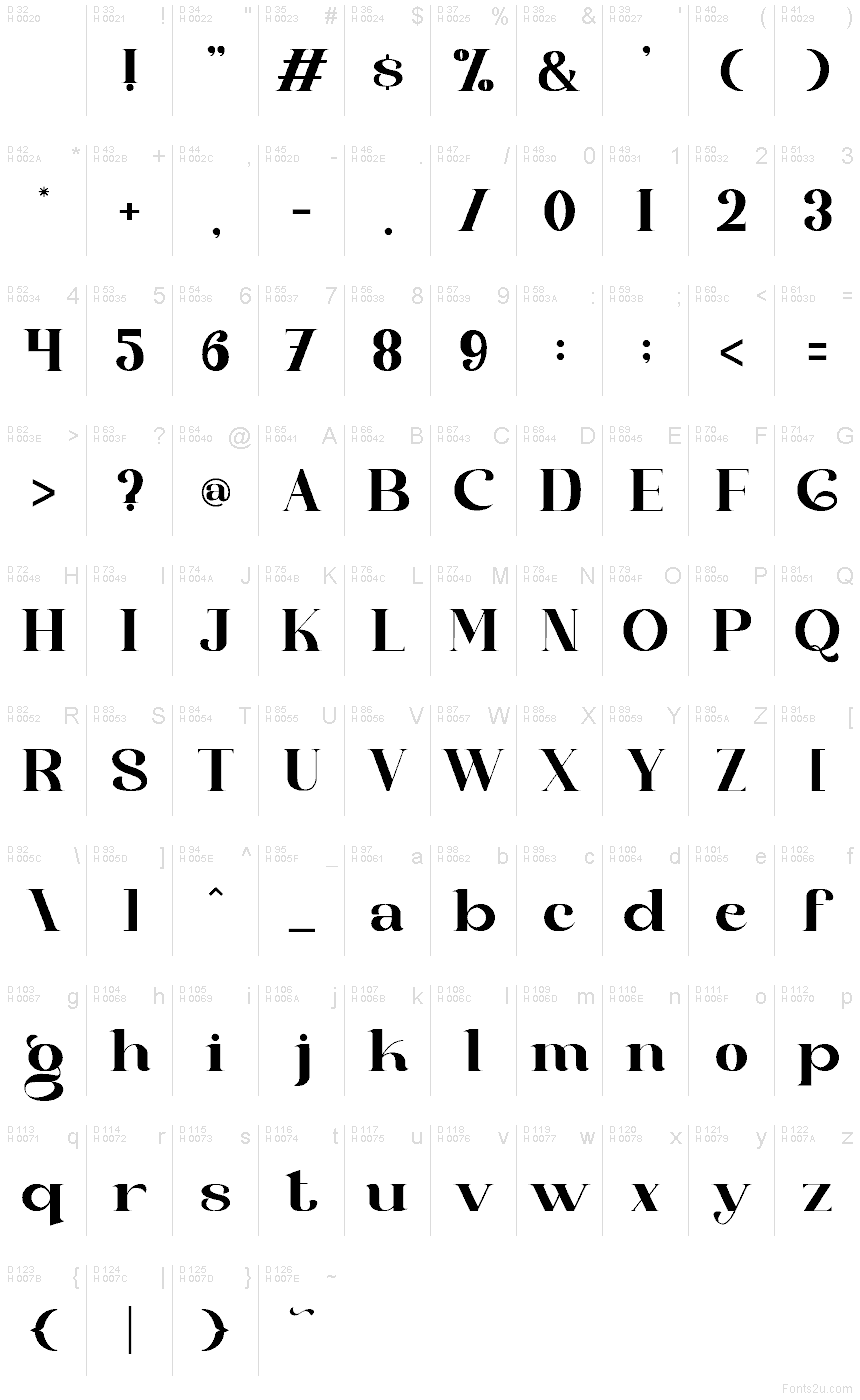
Grinda
Grinda font, by PutraCetol Studio, is a classic bold expanded serif with notable large text size. The sophisticated free serif font is rich with elegant and authoritative qualities that give it a serious look. Its readability makes it functional in addition to aesthetic which gives you more excuses to use it in any of your creations.
This beautiful typeface fits inside newspapers and magazine covers and content. You can also get creative using it in branding and advertising or designing posters, brochures, flyers, paperbacks status updates wall posts blogs headlines logos business cards products packaging makam research publications etc.